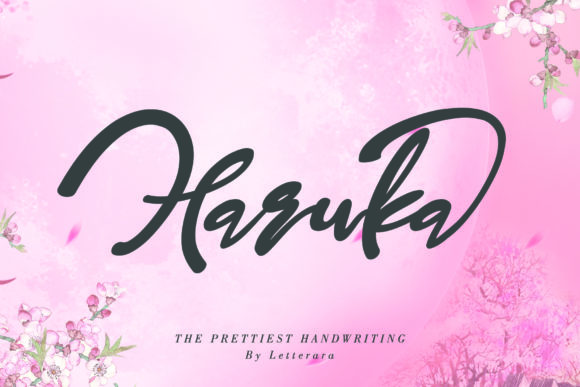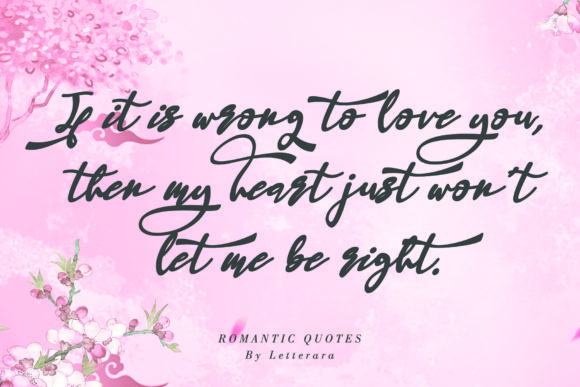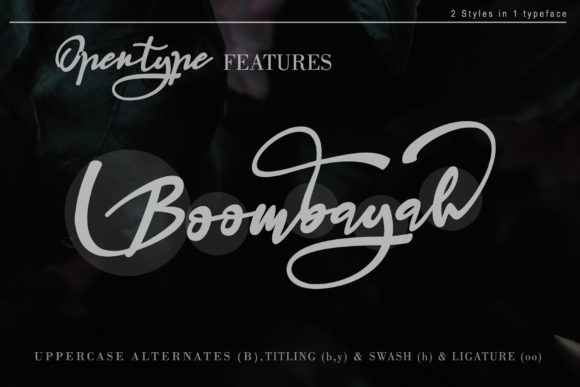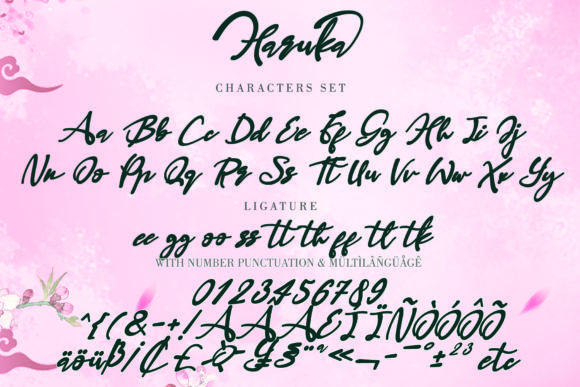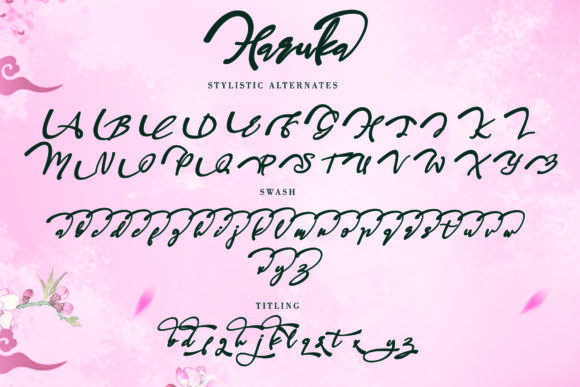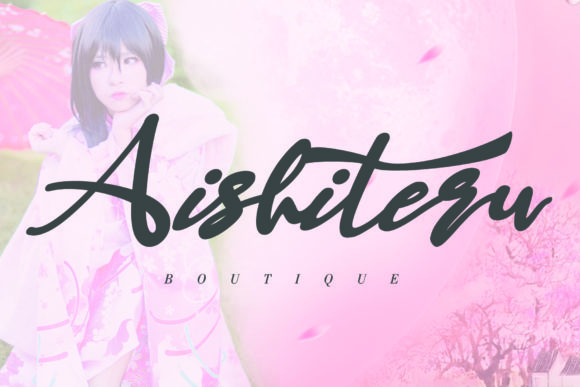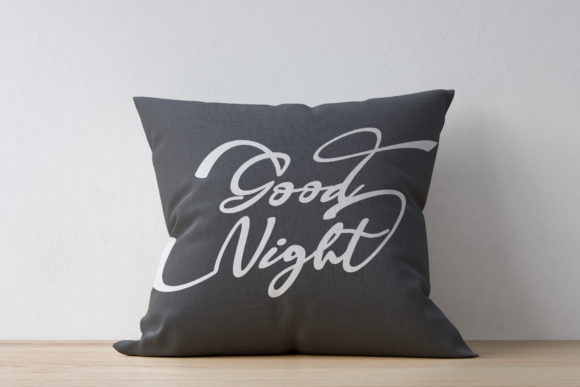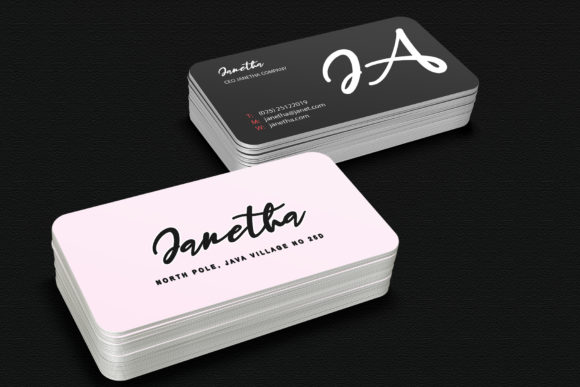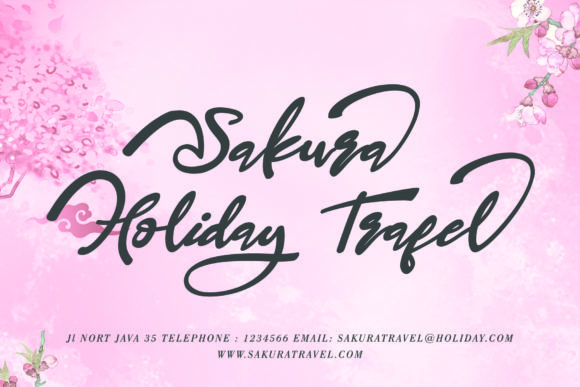
HomeScript FontsHaruka Font Script Fonts Haruka Font FacebookXPinterestWhatsApp Haruka Font Poster 2 Haruka Font Poster 3 Haruka Font Poster 4 Haruka Font Poster 5 Haruka Font Poster 6 Haruka Font Poster 7 Haruka Font Poster 8 Haruka Font Poster 9 About Haruka Font Haruka is a Japanese Kimono inspired typeface. It has a powerful feel, with a bold exterior. DOWNLOAD NOW People also explored Michayla Font Stevania Font Kitten Club Font Metanoia Font Valentine Rose Font Happy Valentines Day Font Yeti Bigfoot Font Regra Wonderland Font 367 0 TagsHaruka Font Previous articleChristmas Present Duo FontNext articleDillon the Cat Font LEAVE A REPLY Cancel reply Comment: Please enter your comment! Name:* Please enter your name here Email:* You have entered an incorrect email address! Please enter your email address here Website: Save my name, email, and website in this browser for the next time I comment. Personal Use Free City Tour Personal Use Free Read more about this font Kensin Personal Use Free Read more about this font Loving You Personal Use Free Read more about this font Hello Sarrah Personal Use Free Read more about this font BLOG Fonts That Capture the Spirit of New York City New York City is more than just a place—it’s an experience, a rhythm, a visual language... Where to Buy American Fonts Online in 2024 Free vs Paid Fonts: Why Investing in Premium Fonts Is Worth It Top 10 Handwritten Fonts That Elevate Your Designs